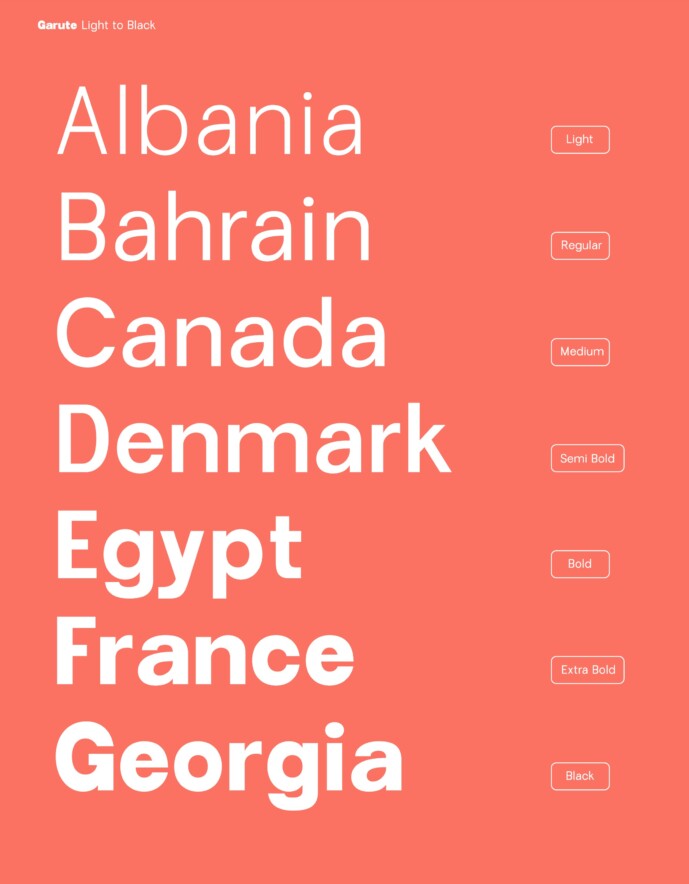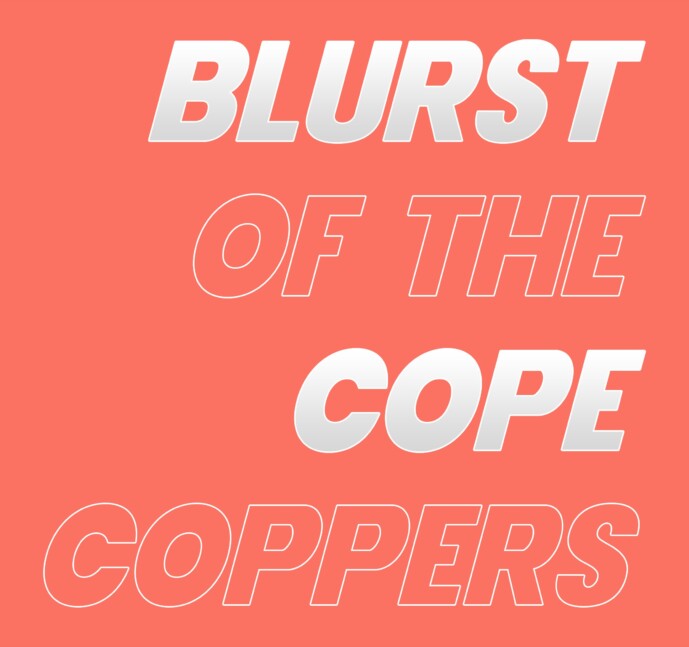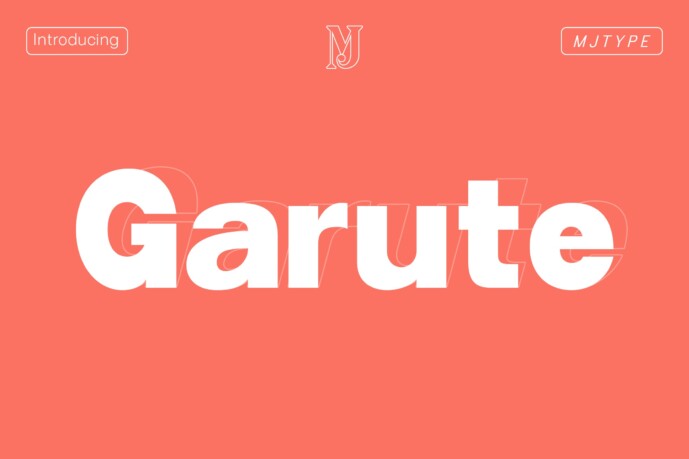
Garute Font Family
Designer: mjtype
Garute Font Family is a free semi-geographic humanistic sans serif font family. Made from designer Mjtype. Its clean, straight lines and modern feel make it perfect for modern design projects like logos, headlines, posters, t-shirts, and business cards.